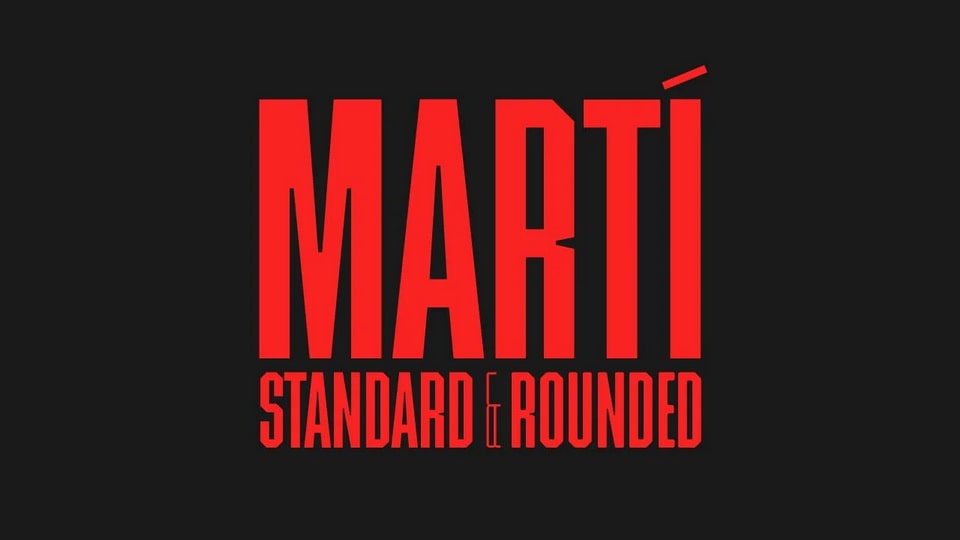
Download Marti font, a bold and versatile typeface that combines strength with approachability with its clean, geometric structure and rounded edges.